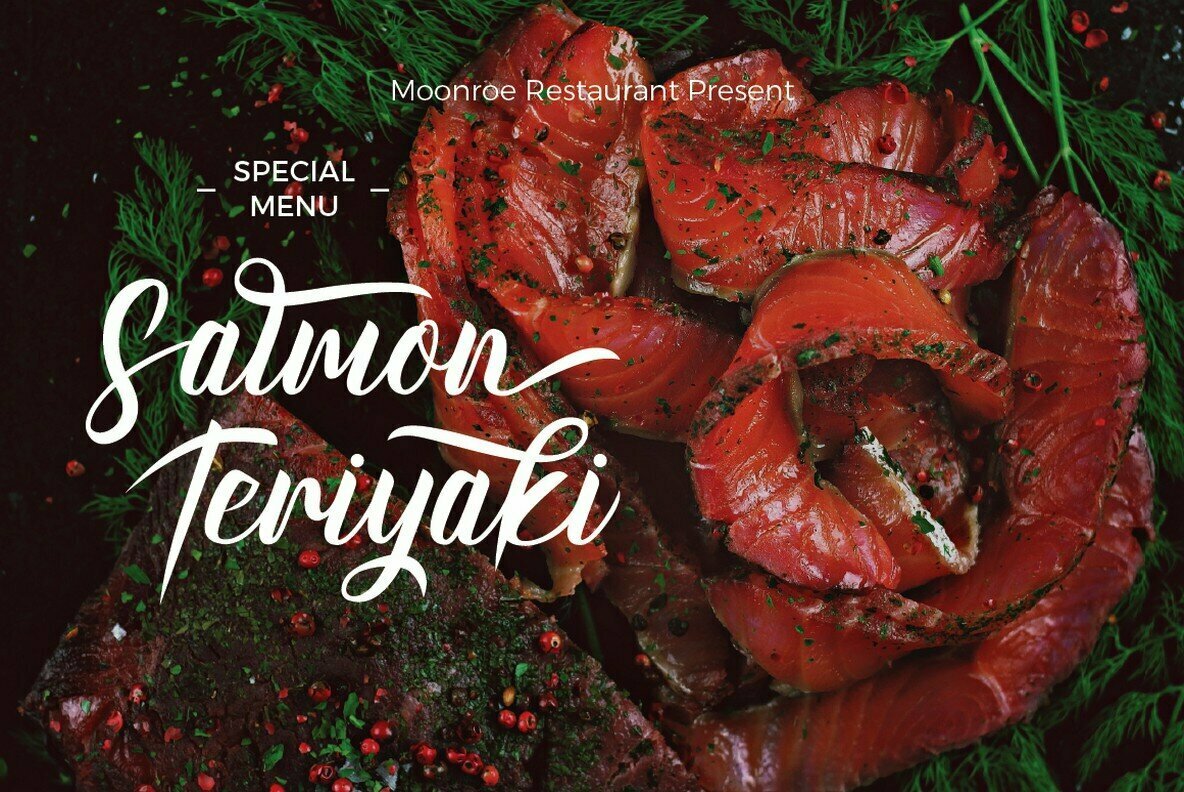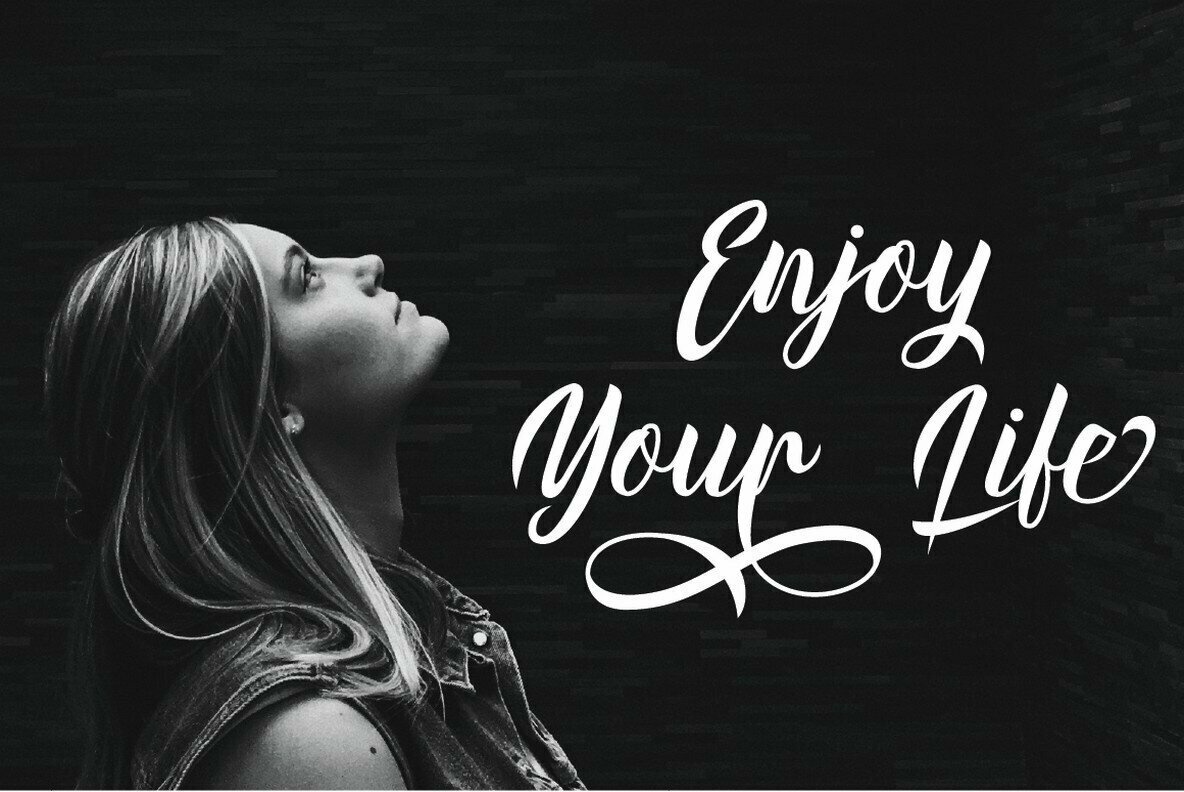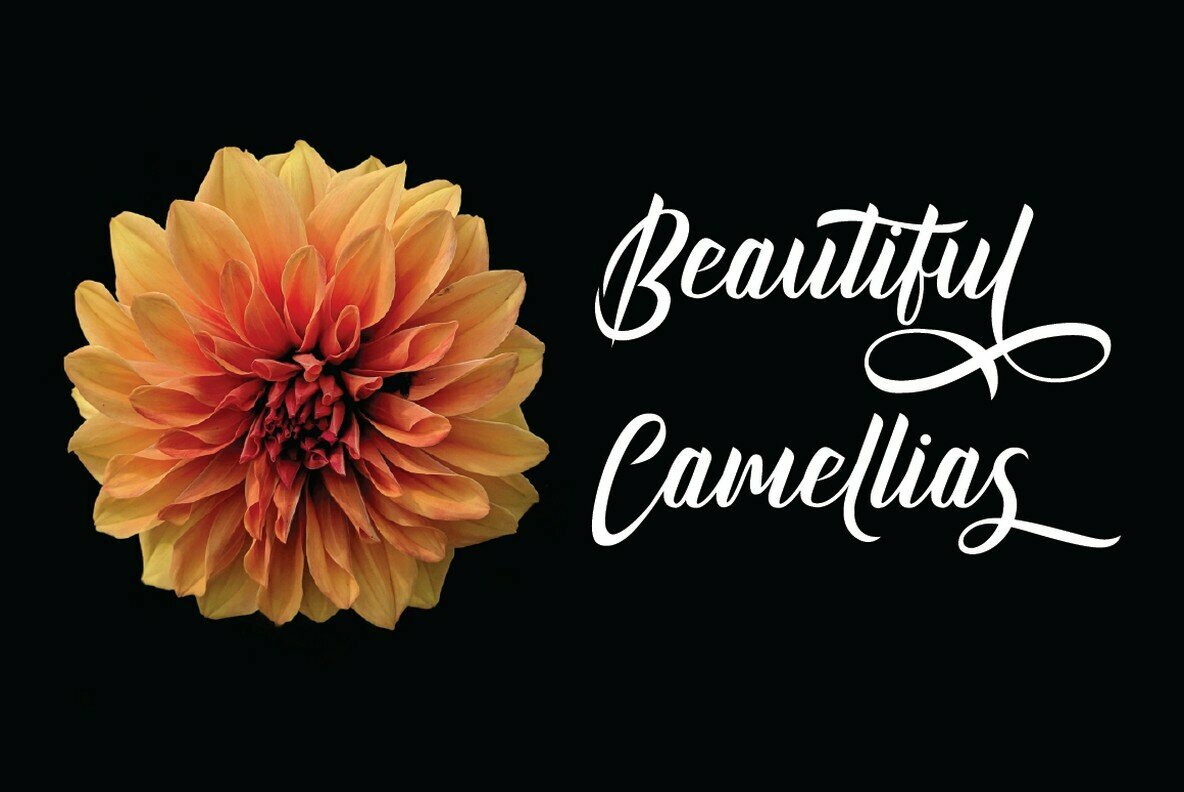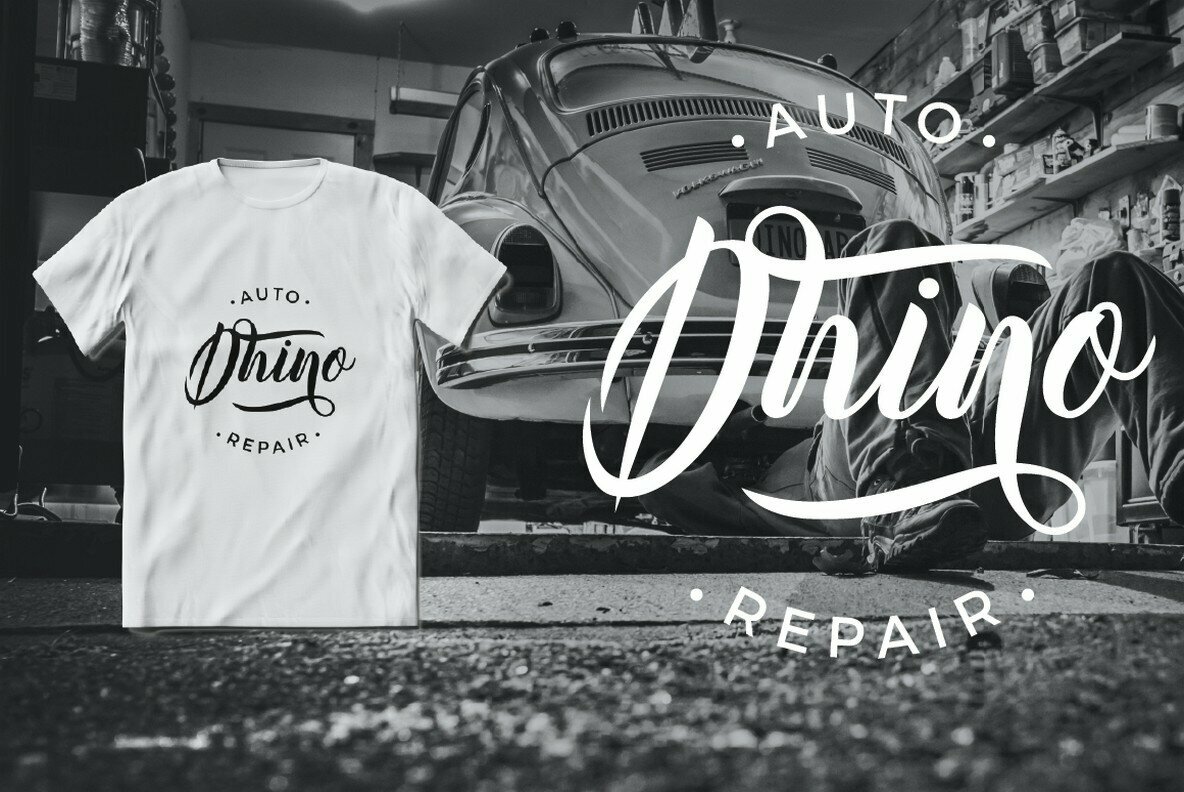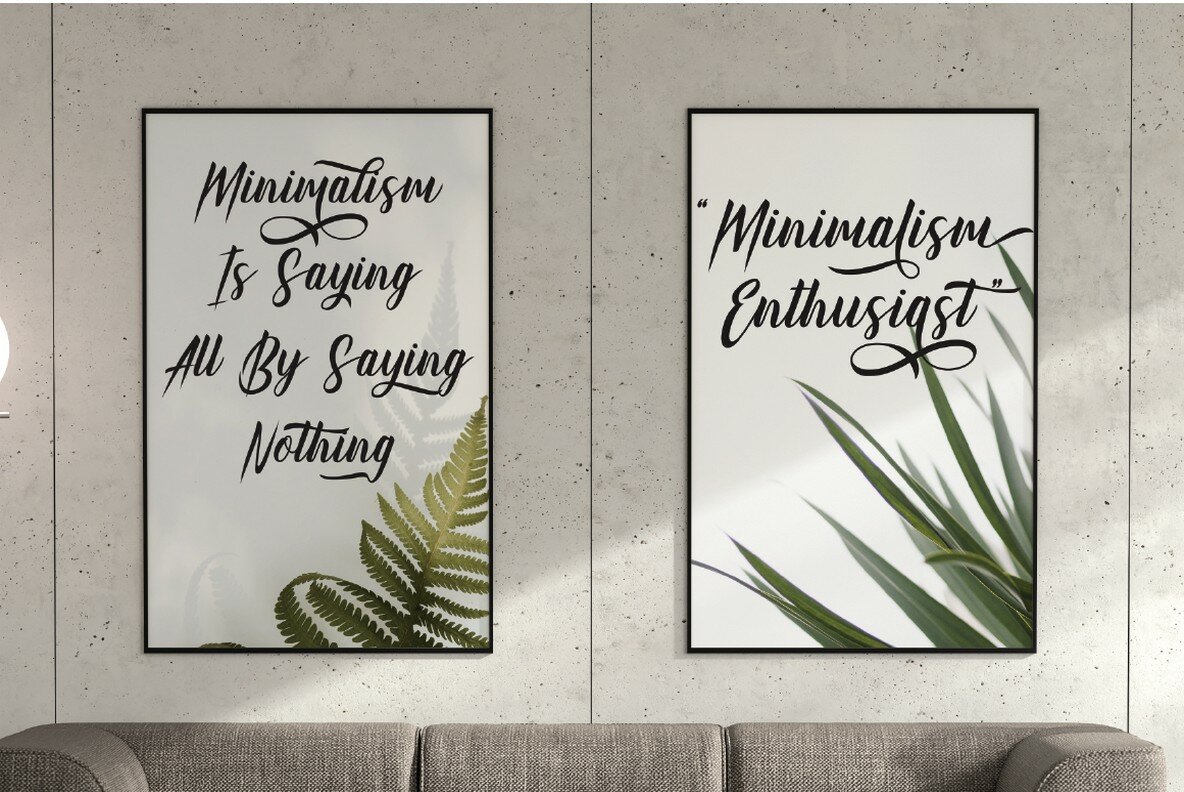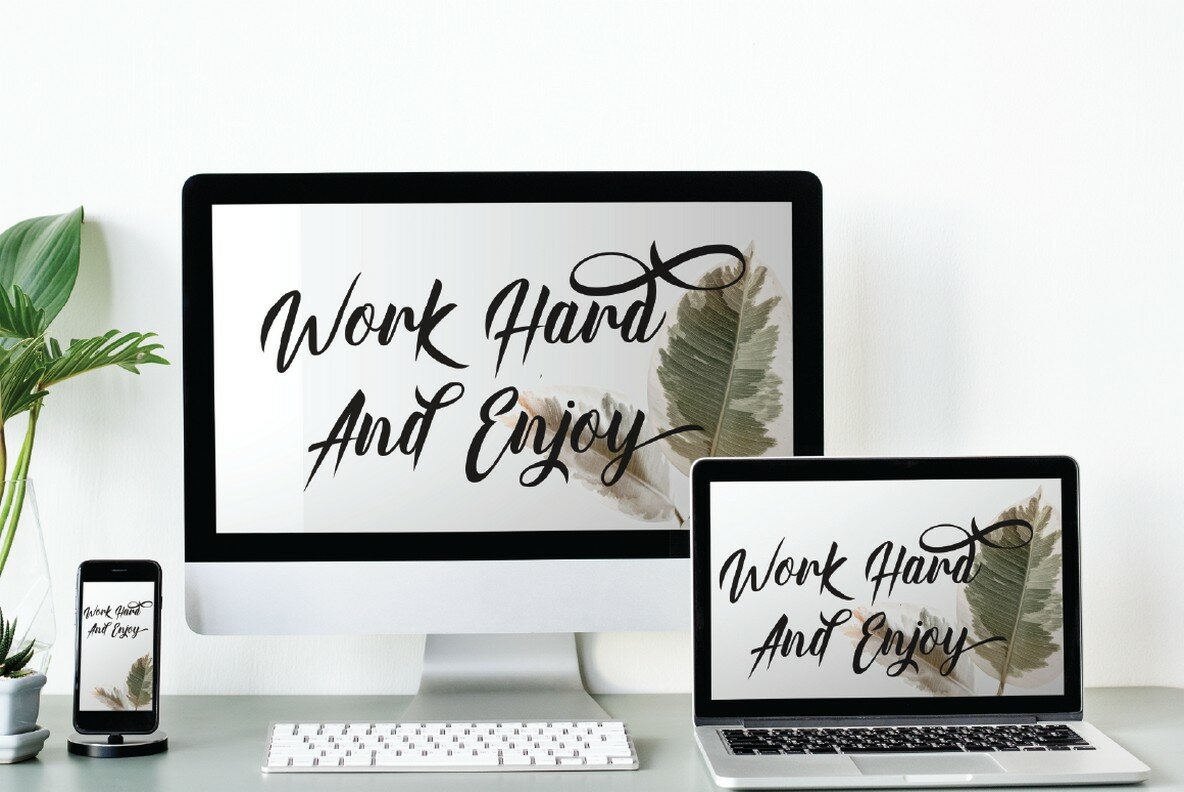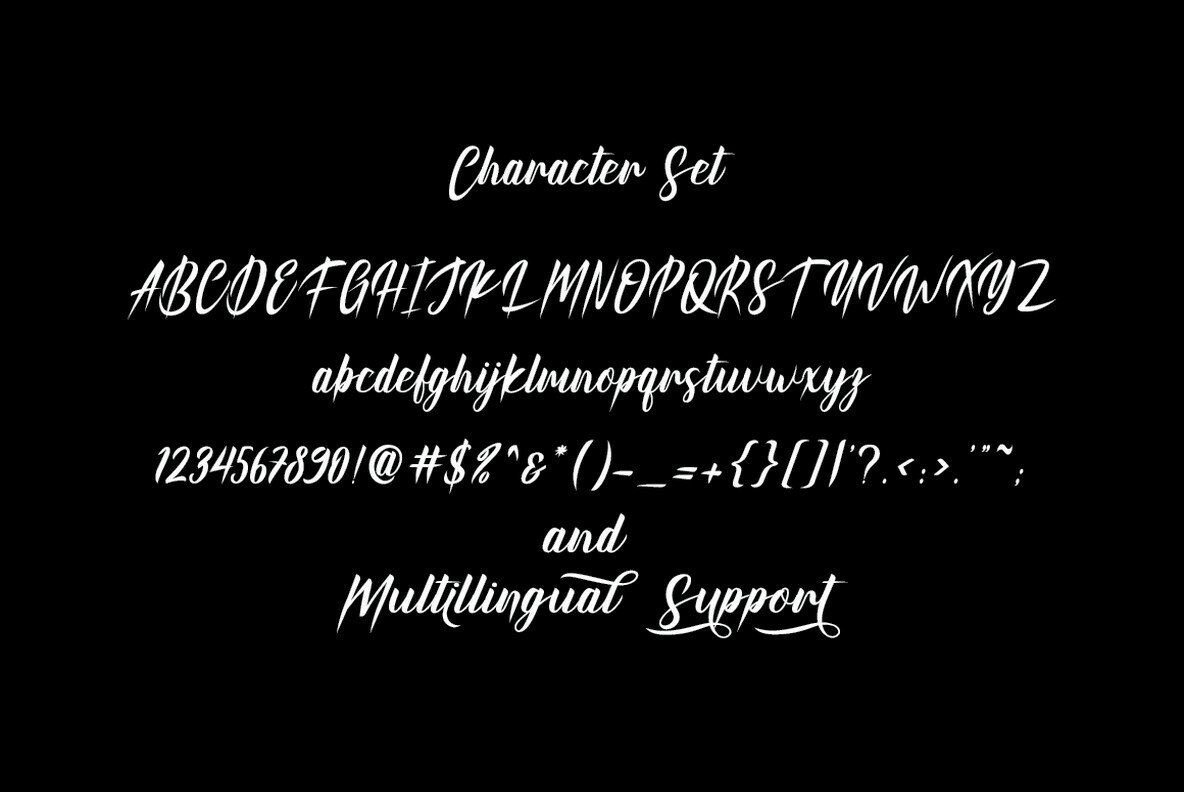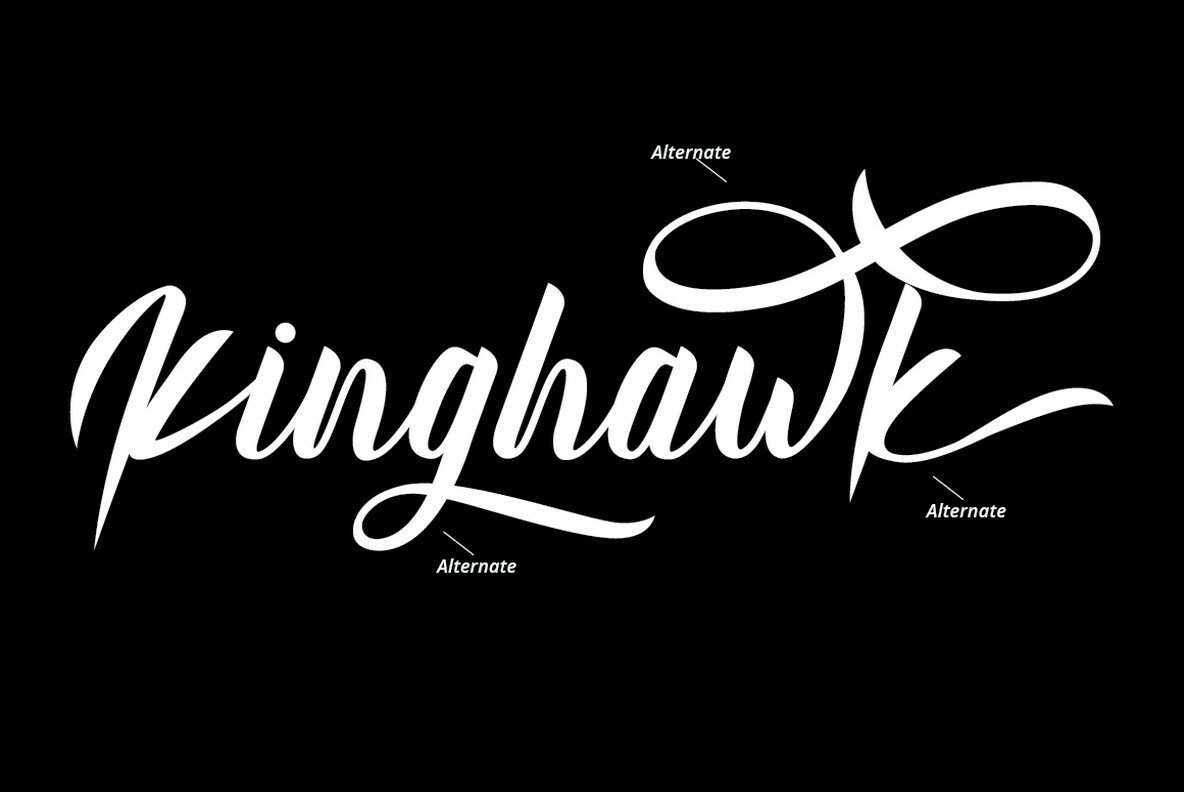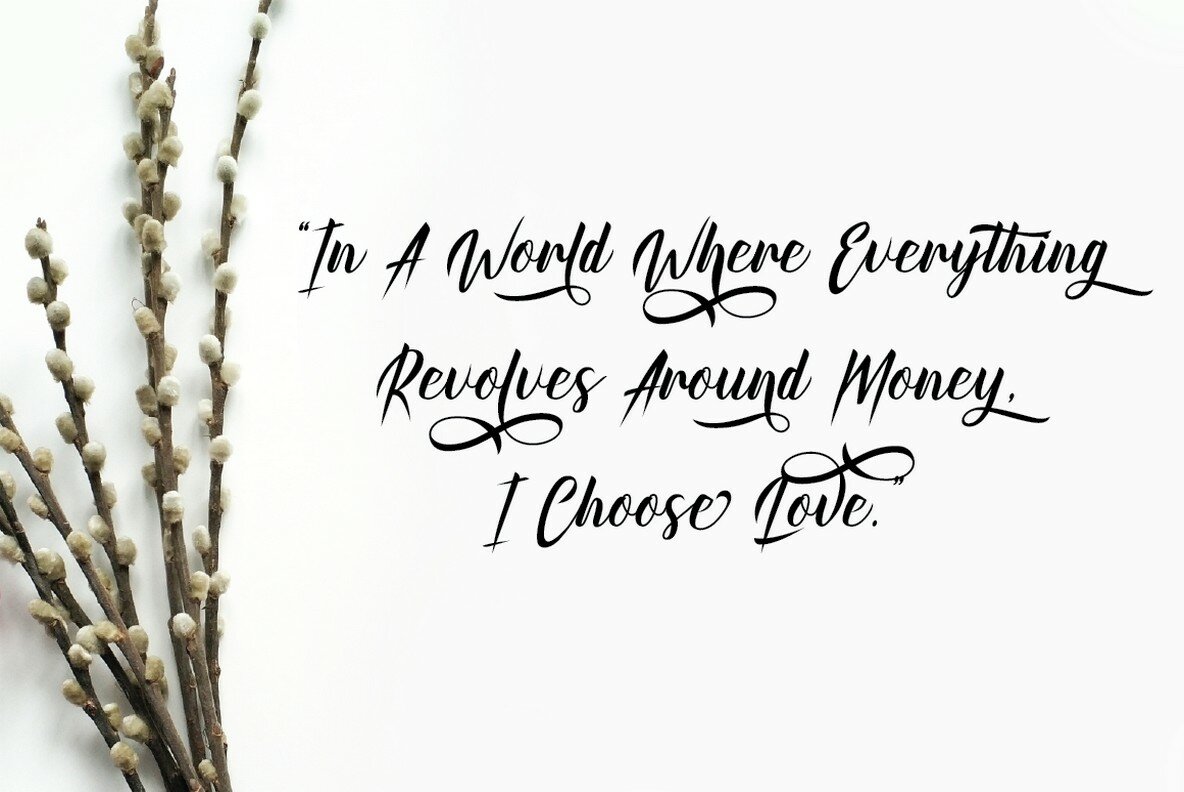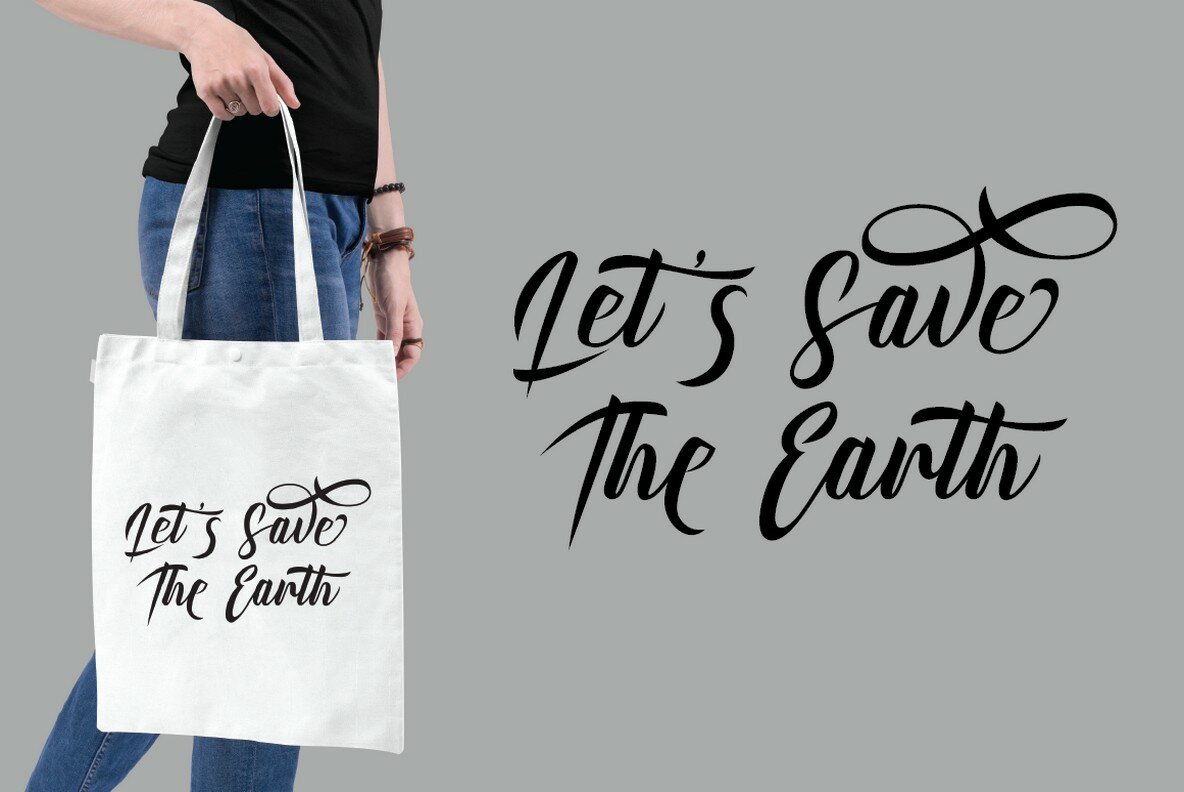
Kinghawk Font
Kinghawk
Kinghawk is a natural handwritten brush font. Made by writing on paper first and then scanning. Then spruce up each character so that they blend into a very natural font. Like original handwriting.
Kinghawk is perfect for logo, quote, stationery, wedding designs, social media posts, advertisements, product packaging, product designs, label, photography, watermark, special events or anything.
- Uppercase
- Lowercase
- Number, Punctuation and Symbols
- Multilanguage Support
- Alternate